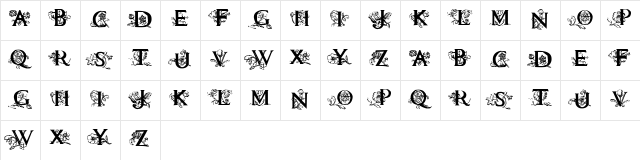
Flowers Initials Regular Font Preview
Flowers Initials Regular
Design Context for Flowers Initials Typeface
Flowers Initials is a composed and adaptable typeface that performs quietly and consistently across a wide range of design contexts.